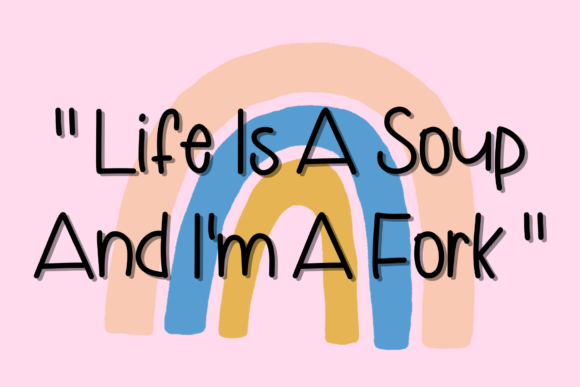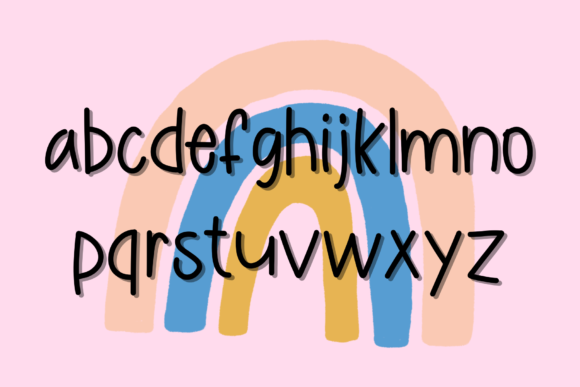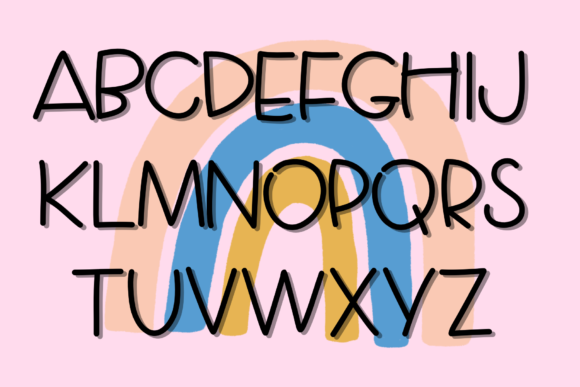
Meet the Phenomenal Font, a high-quality, handwritten font that’s as versatile as it is charming. Its thin and light design makes it perfect for a wide range of creative projects, from casual to festive. With a transparent background, this font is easy to work with, allowing designers to focus on bringing their vision to life. And the best part? It’s available for free download, making it an invaluable resource for designers of all levels.
Key Features of Phenomenal Font
- High-quality font with a transparent background, perfect for creative projects that require a sleek and modern look.
- Designed to be highly versatile, the Phenomenal Font is suitable for a wide range of applications, from logos and branding to digital displays and print materials.
- Features a unique, modern design with clean lines and a sophisticated aesthetic, making it an ideal choice for creative professionals and designers.
- Includes multiple font styles and weights, allowing users to customize their designs with ease and precision.
Honest Review: Phenomenal Font
As a designer, I’m always on the lookout for high-quality fonts to enhance my creative projects. I recently had the chance to test out the Phenomenal Font, and I’m excited to share my thoughts.
One of the standout features of this font is its transparent background, which makes it incredibly versatile. It’s perfect for designing backgrounds, icons, or even creating a stunning visual identity for your brand. The font itself is clean, modern, and easy to read, making it a great addition to any design project.
- High-quality design with a transparent background
- Perfect for creative projects that require a modern, clean look
- Some characters may require manual adjustments for optimal display
- Not ideal for use in small font sizes or low-resolution designs
Overall, I’m impressed with the Phenomenal Font and would definitely recommend it to fellow designers. With its high-quality design and transparent background, it’s a great addition to any design resource collection. Just be mindful of its limitations, and you’ll be golden! ✨
Phenomenal Font is perfect for a wide range of creative projects, including logos, posters, digital artwork, and more. Its high quality and versatility make it an ideal design resource for designers and non-designers alike.